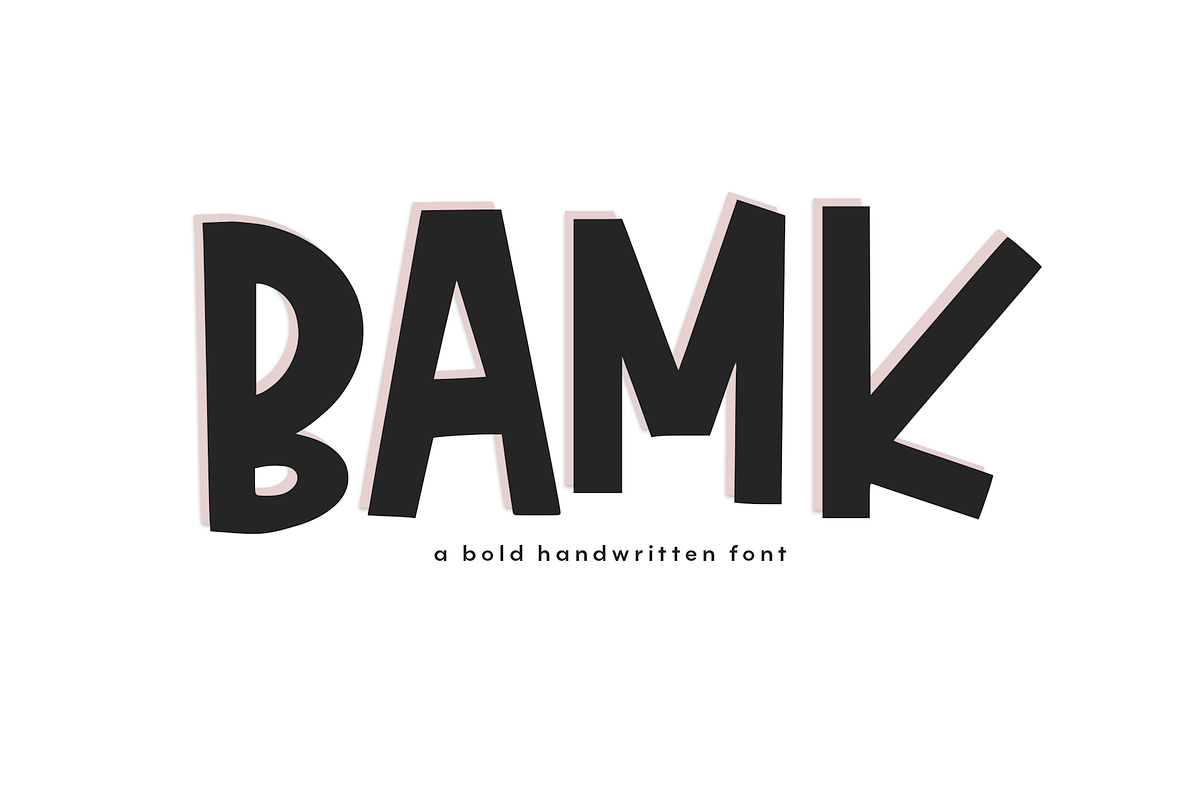
BAMK | A Bold Handwritten Font Free Download is a strong, expressive typeface that blends the energy of hand lettering with the impact of bold design. Please note, you are required to purchase this font for commercial use. It is available for free download for testing and personal projects only.
With its thick strokes, confident curves, and casual brush style, BAMK is perfect for branding, social media graphics, posters, merchandise, and projects that need a loud, authentic voice. It delivers personality and punch while staying easy to read across all formats.